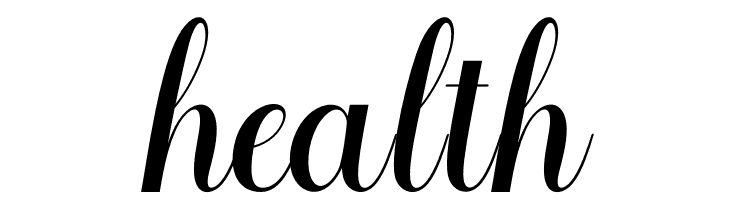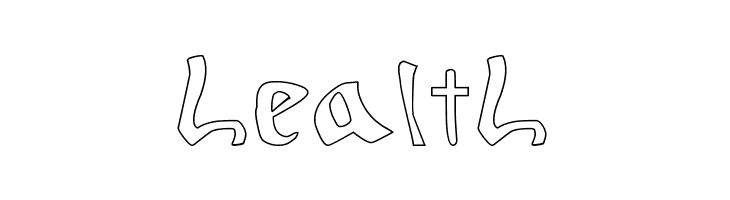
A bold, geometric font with a modern and assertive style.
A bold, modern font with thick, uniform strokes for high impact.
Bold, italicized font with strong, angular lines and a dynamic slant.
A bold, italic font with strong, angular lines and a modern aesthetic.
A modern, clean sans-serif font with balanced spacing and consistent stroke width.
An elegant, flowing script font with intricate, interconnected letterforms.
A mysterious, hollow font with an ancient, coded appearance.
An elegant script font with intricate swirls and high contrast strokes.
A decorative and ornate font with gothic influences and intricate flourishes.
A dynamic and artistic font with swirling, fluid strokes and a calligraphic style.